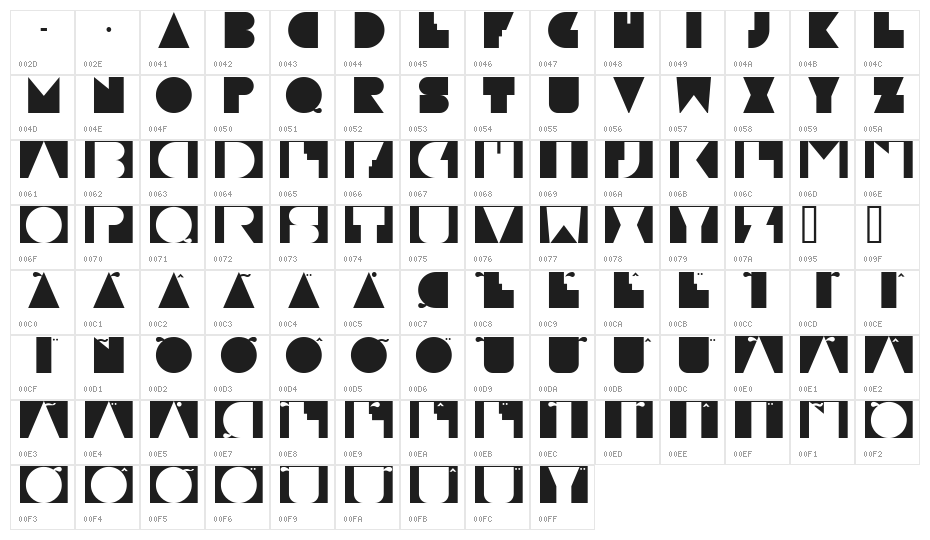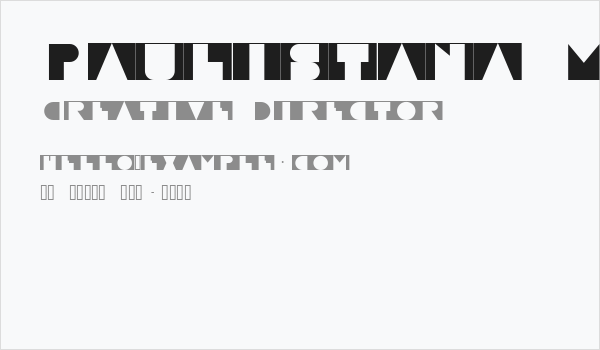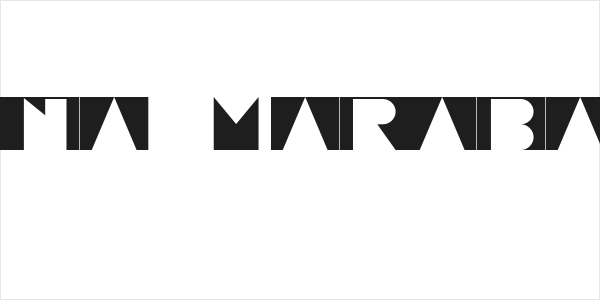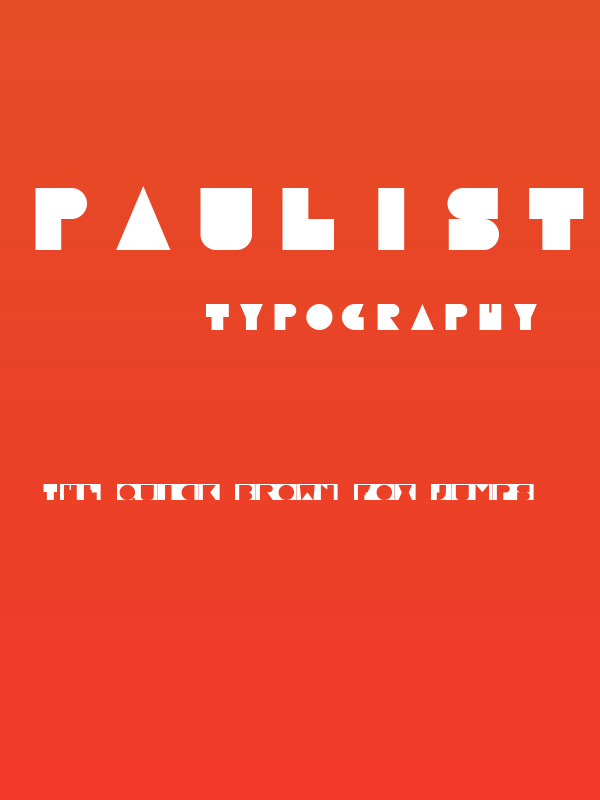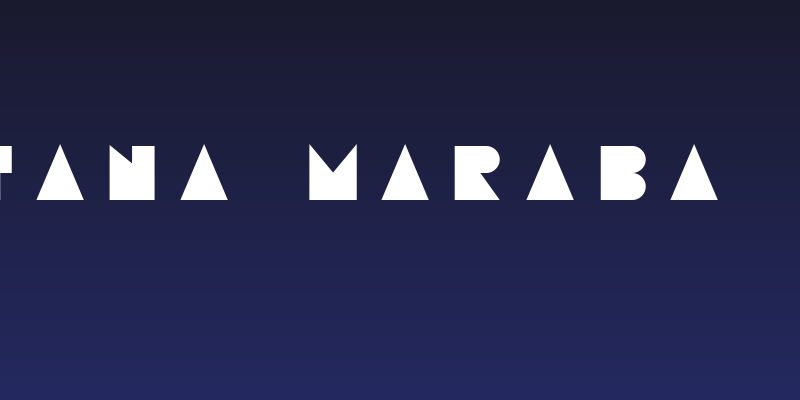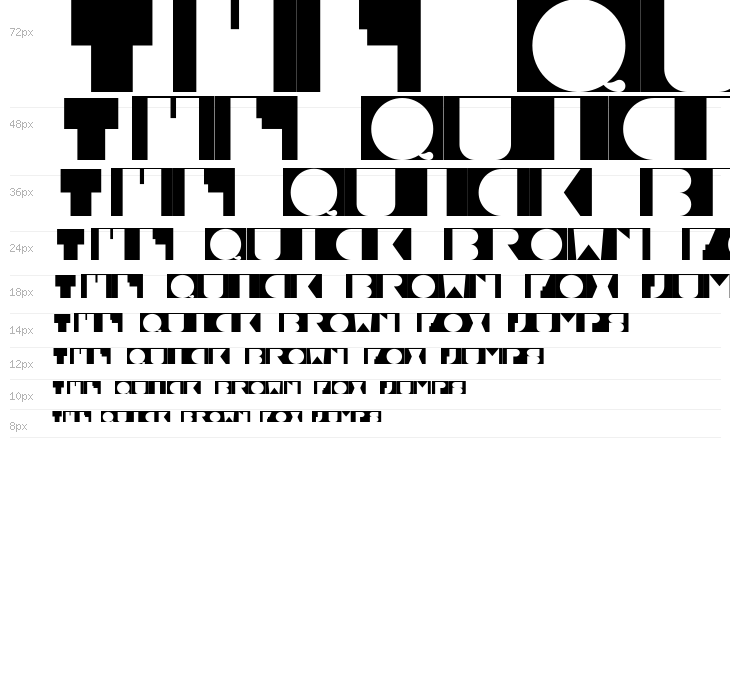
Paulistana Maraba Regular Font
Paulistana Maraba Regular Description
This font features a bold and geometric design with a strong emphasis on angular shapes and sharp edges. The characters are constructed with a mix of solid and cut-out sections, creating a dynamic and modern appearance. The uppercase letters are particularly striking, with a consistent use of triangular and rectangular forms that give the font a unique and artistic flair. The lowercase letters maintain the same geometric style, ensuring a cohesive look throughout. The numbers and special characters are designed to match the bold and distinctive style of the alphabet, making this font suitable for creative and eye-catching designs.
| Proposed Projects | Ideal for branding, posters, album covers, and any project requiring a bold, artistic touch. |